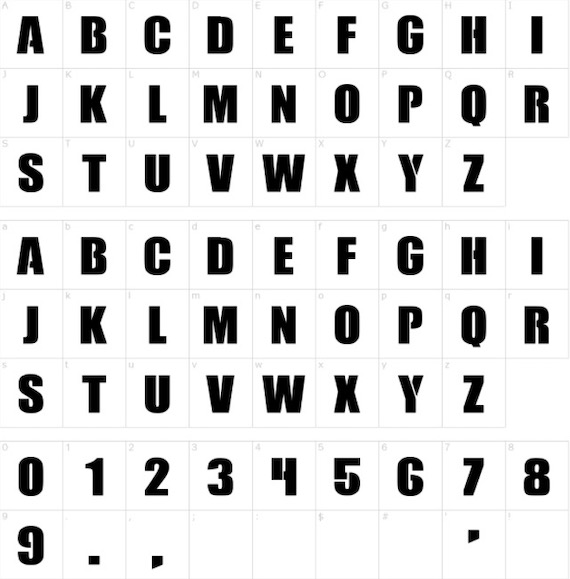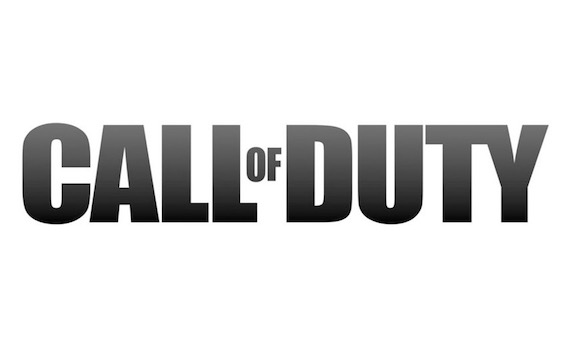
Before introducing the Call of Duty font, you need to know that Call of Duty is a video game produced and developed by Infinity Ward and officially released to Gamers in the world in 2003 by Activision. This logo typeface was designed for the title of the Call of Duty game called Call of Ops Duty and it was designed in an impromptu design by Geoffrey Lee.